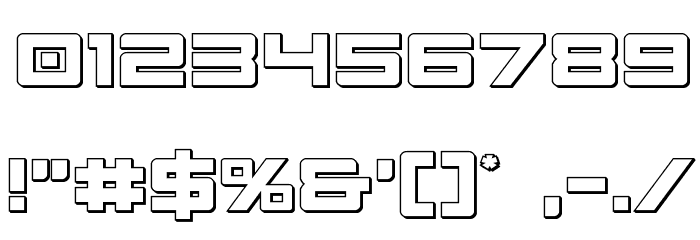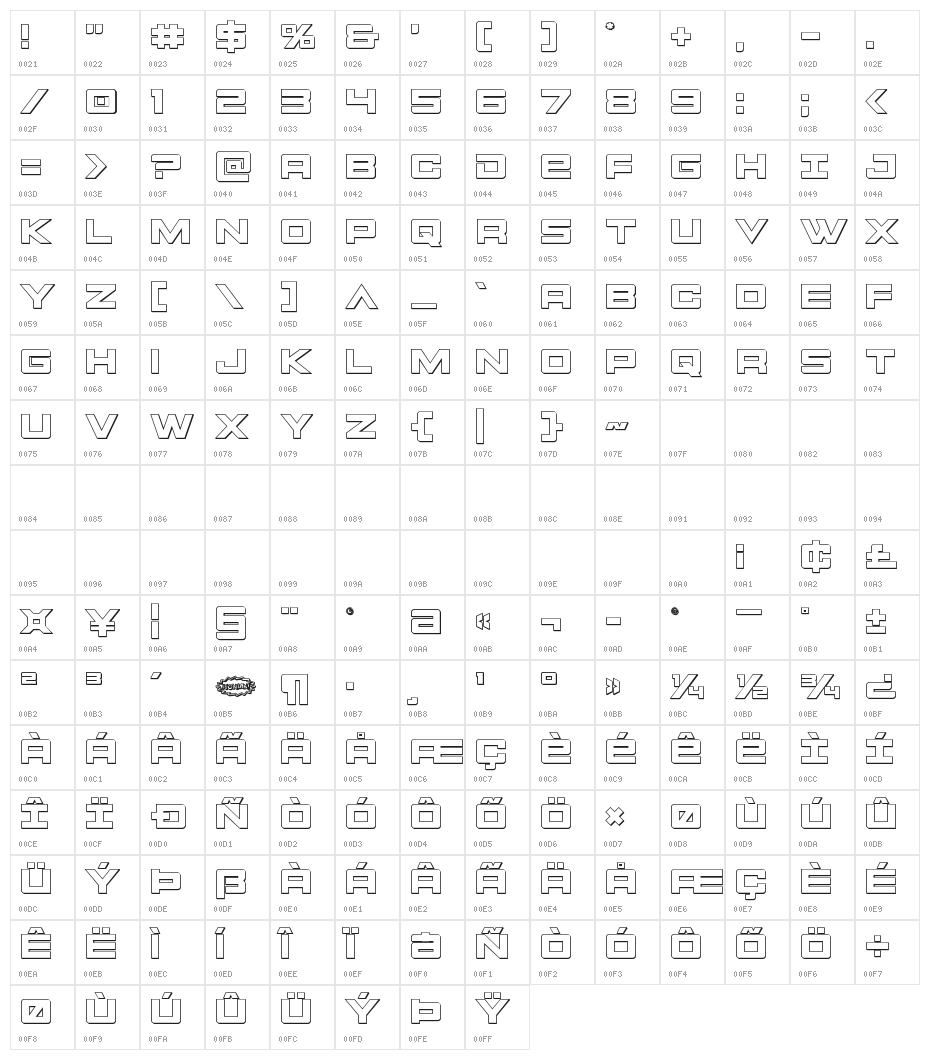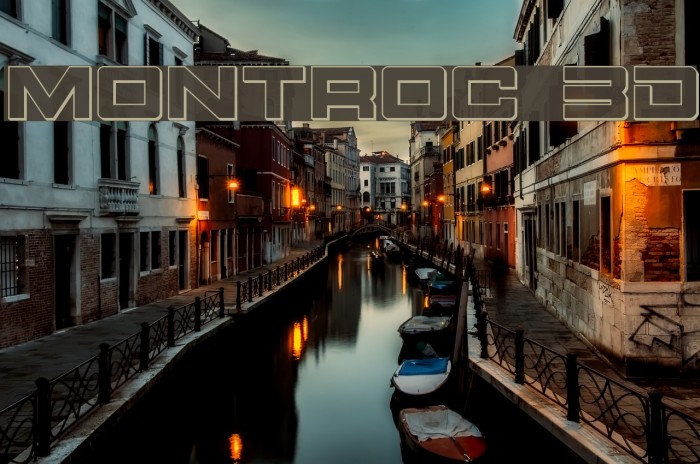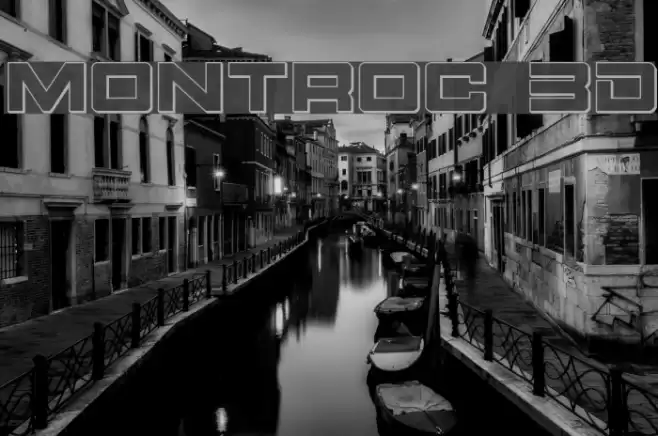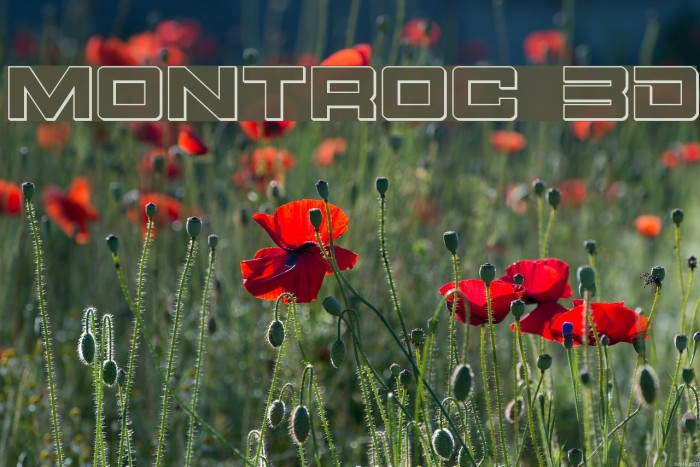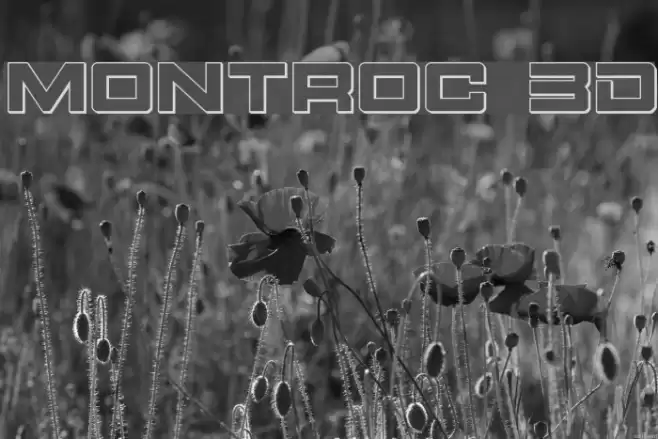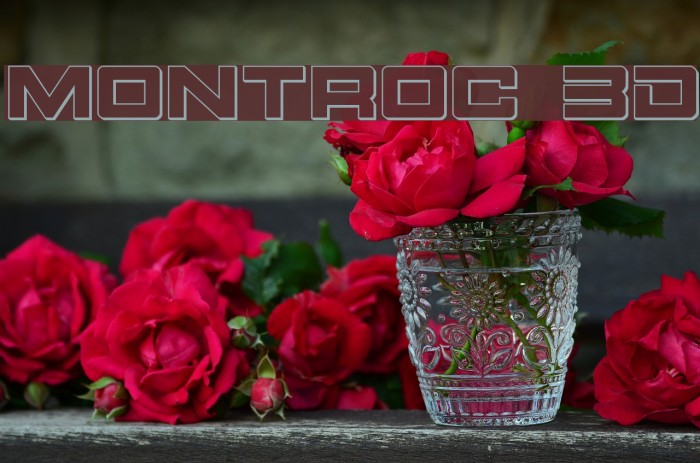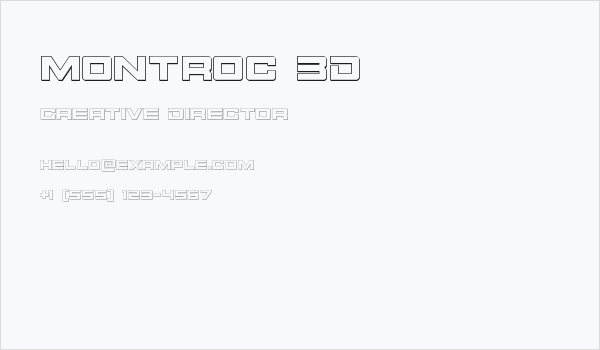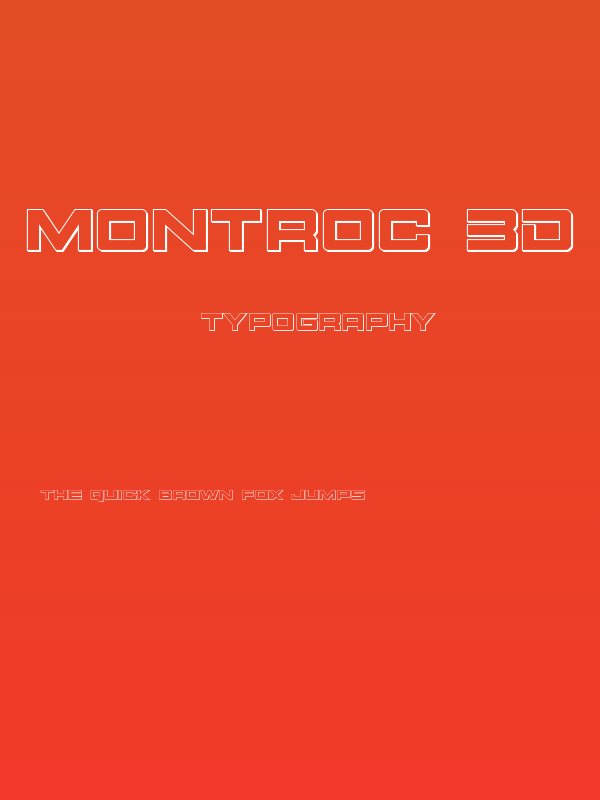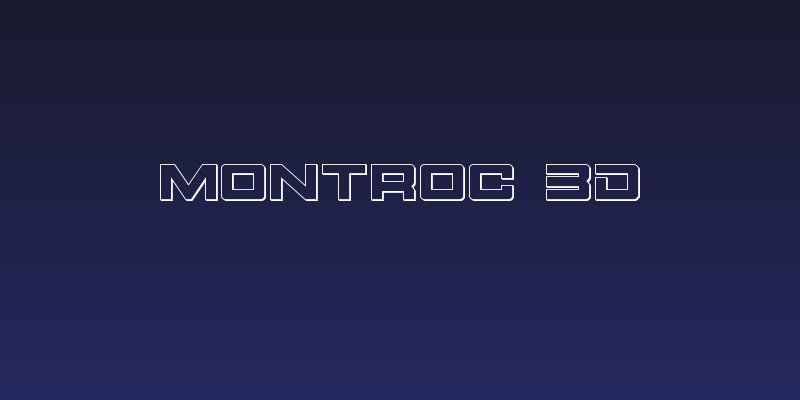
Montroc 3D Font
Montroc 3D Description
This font features a bold, geometric design with a three-dimensional effect that gives it a modern and futuristic appearance. The characters are outlined, creating a hollow look that enhances the 3D illusion. The uppercase letters are uniform in height and width, maintaining a consistent structure throughout. The numerals and special characters follow the same design principles, ensuring a cohesive look across all glyphs. The font's clean lines and sharp angles make it highly legible, even at smaller sizes, while the unique 3D effect adds visual interest and depth.